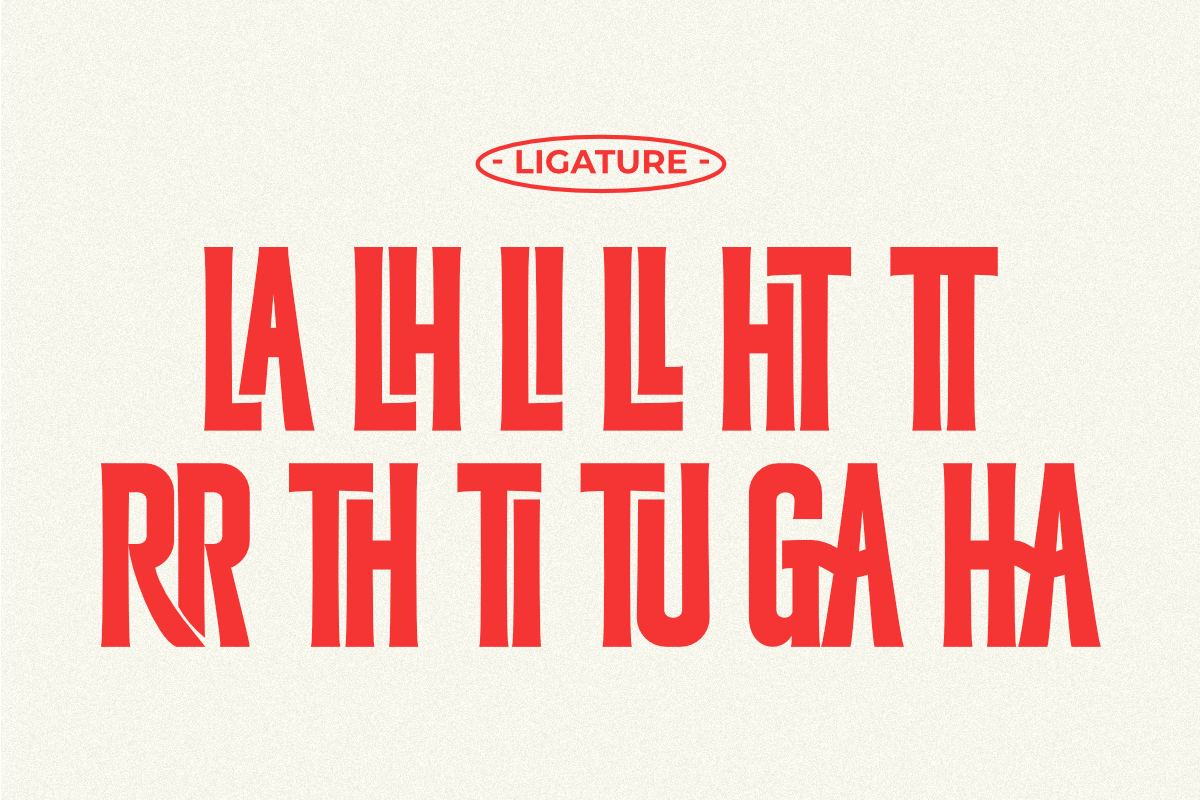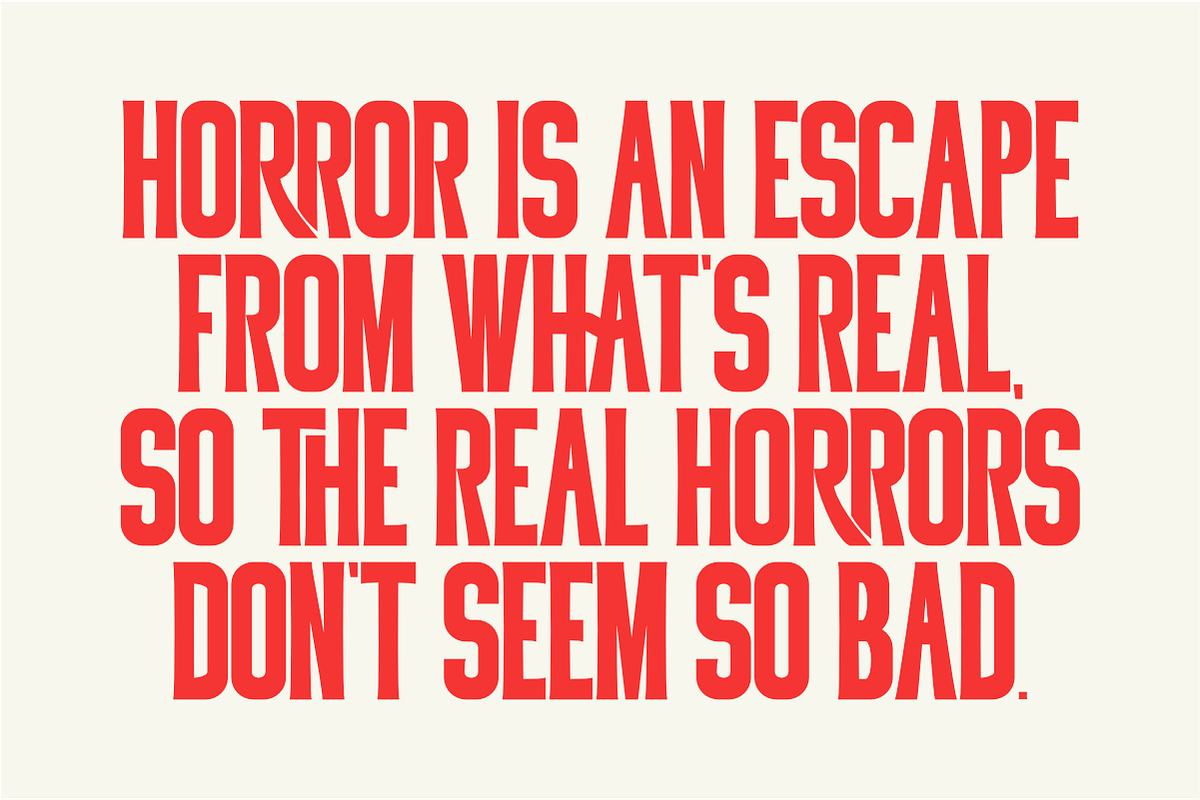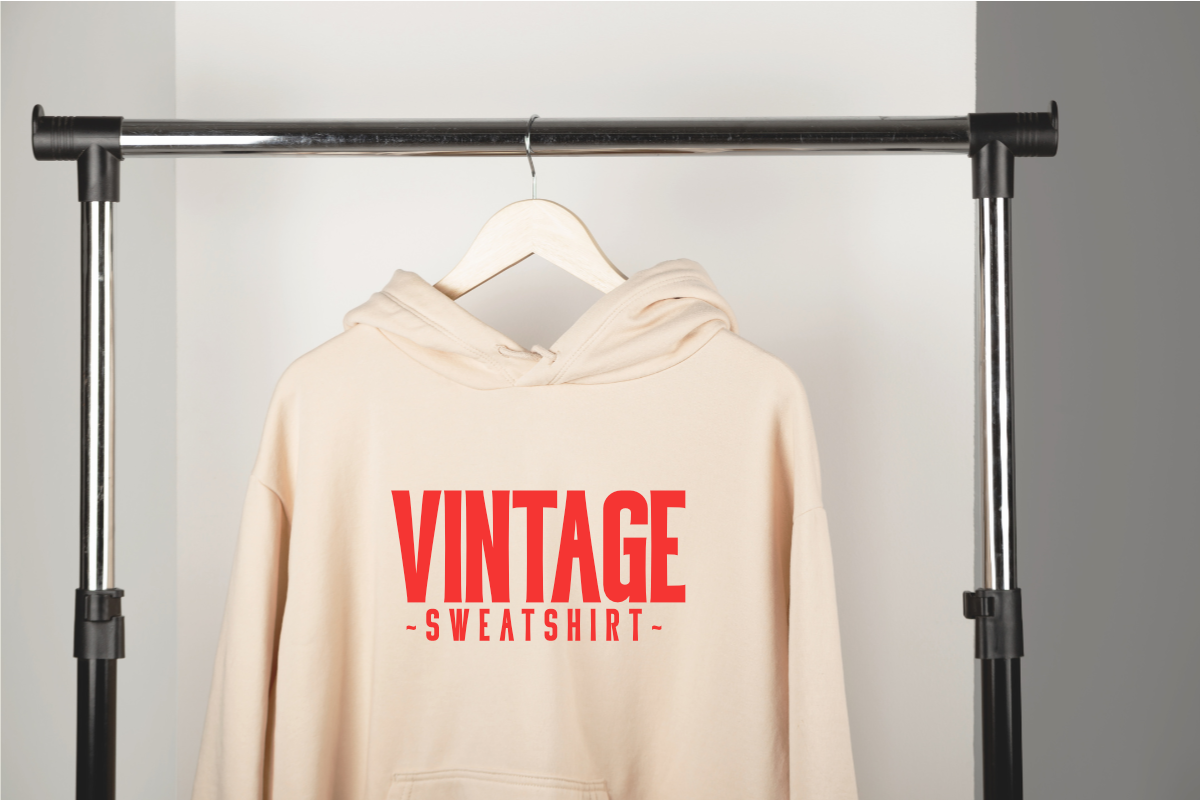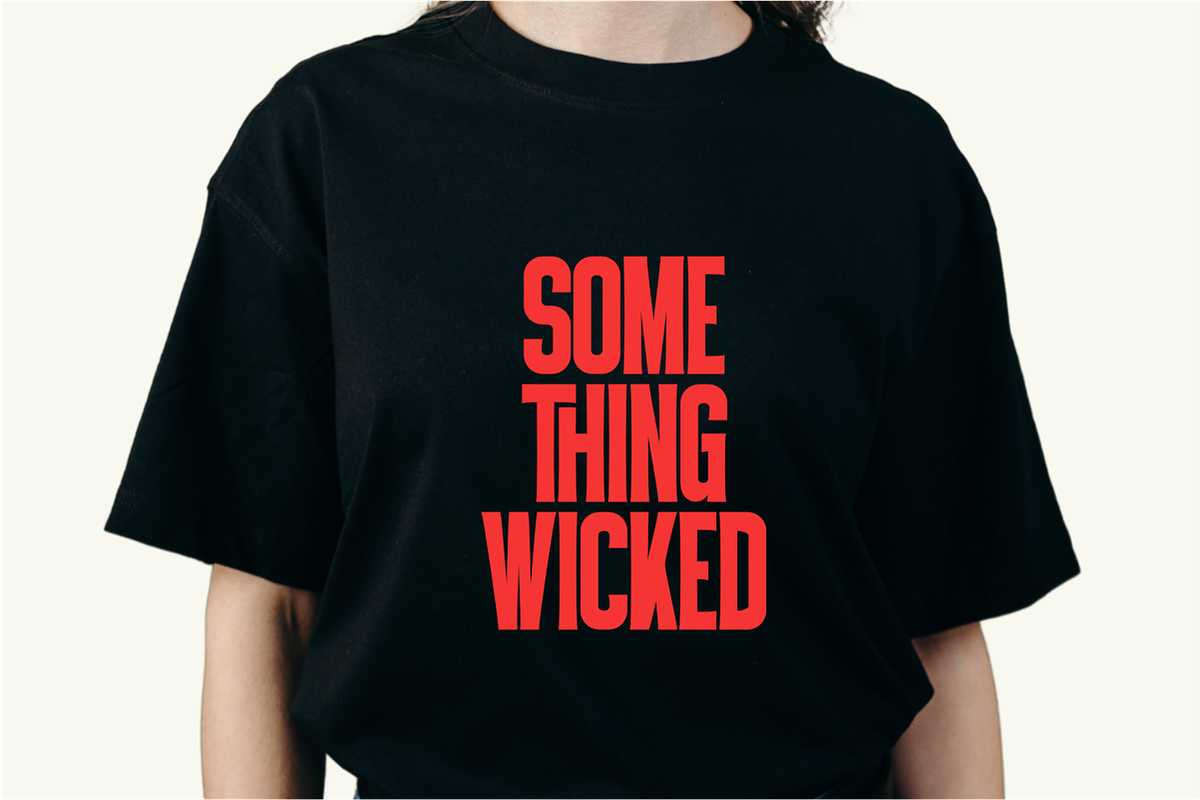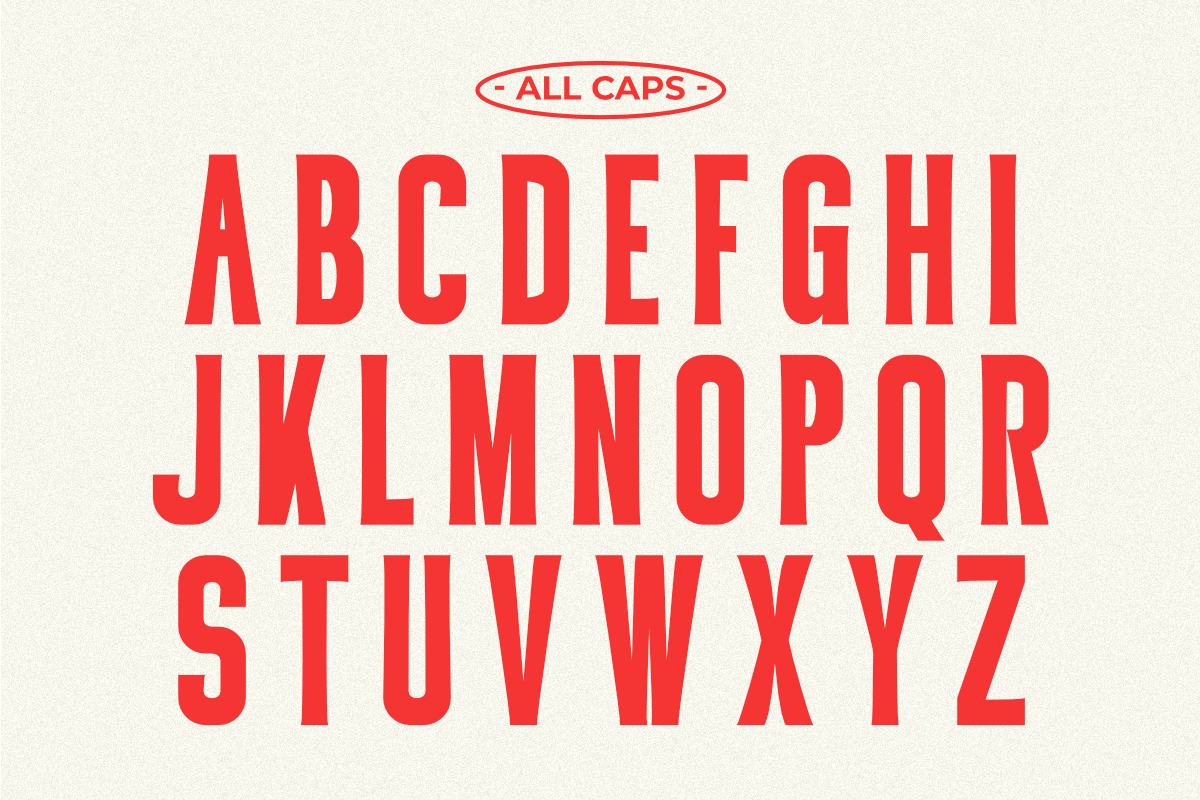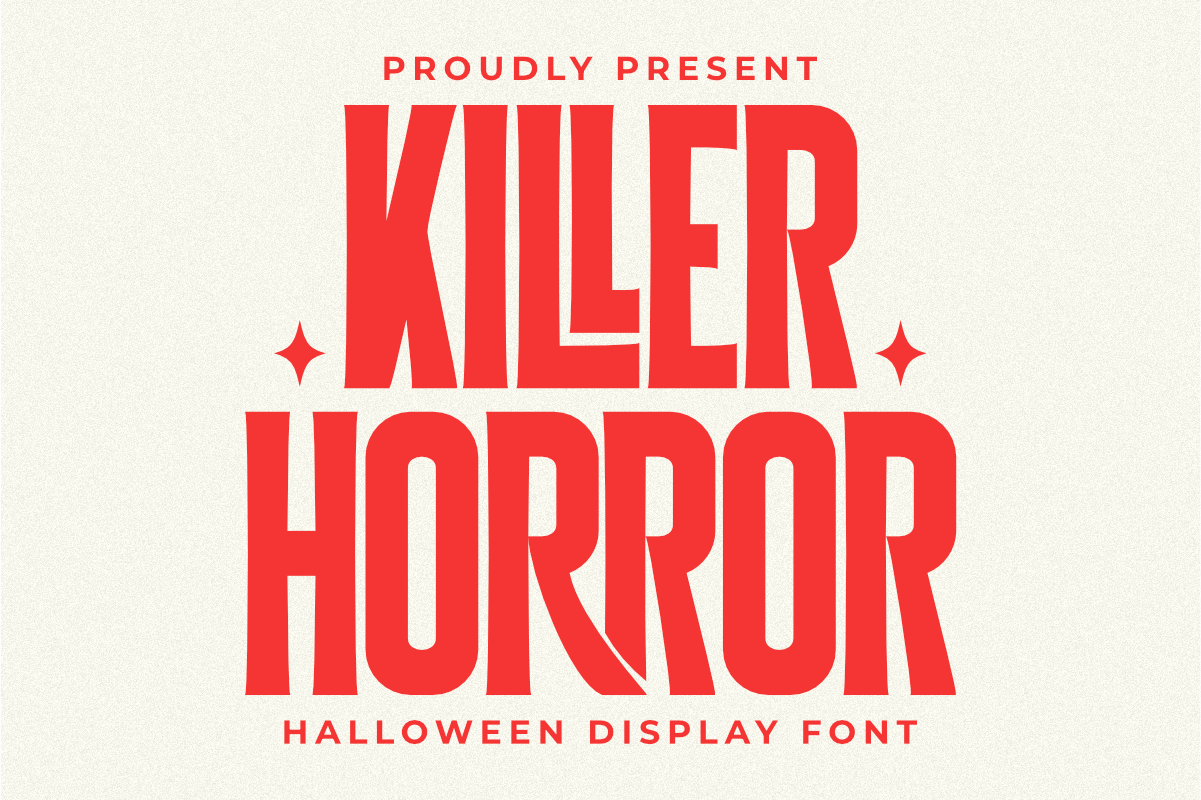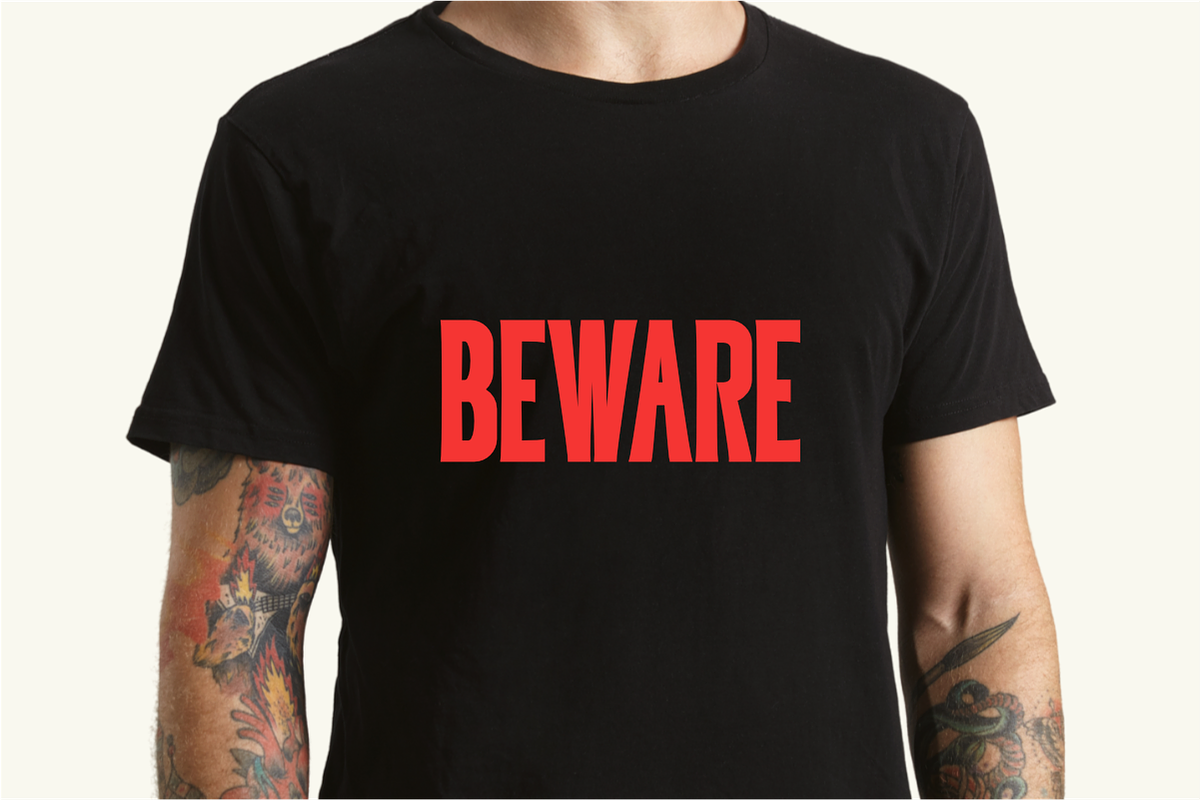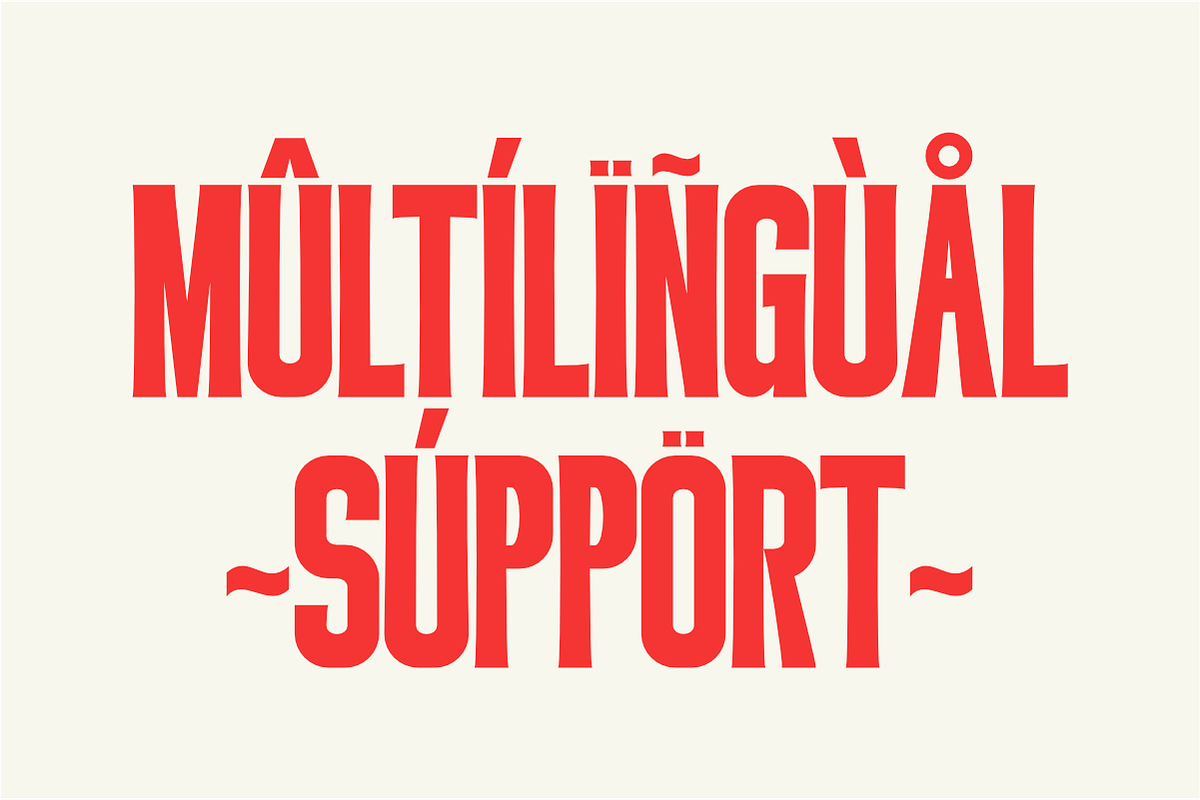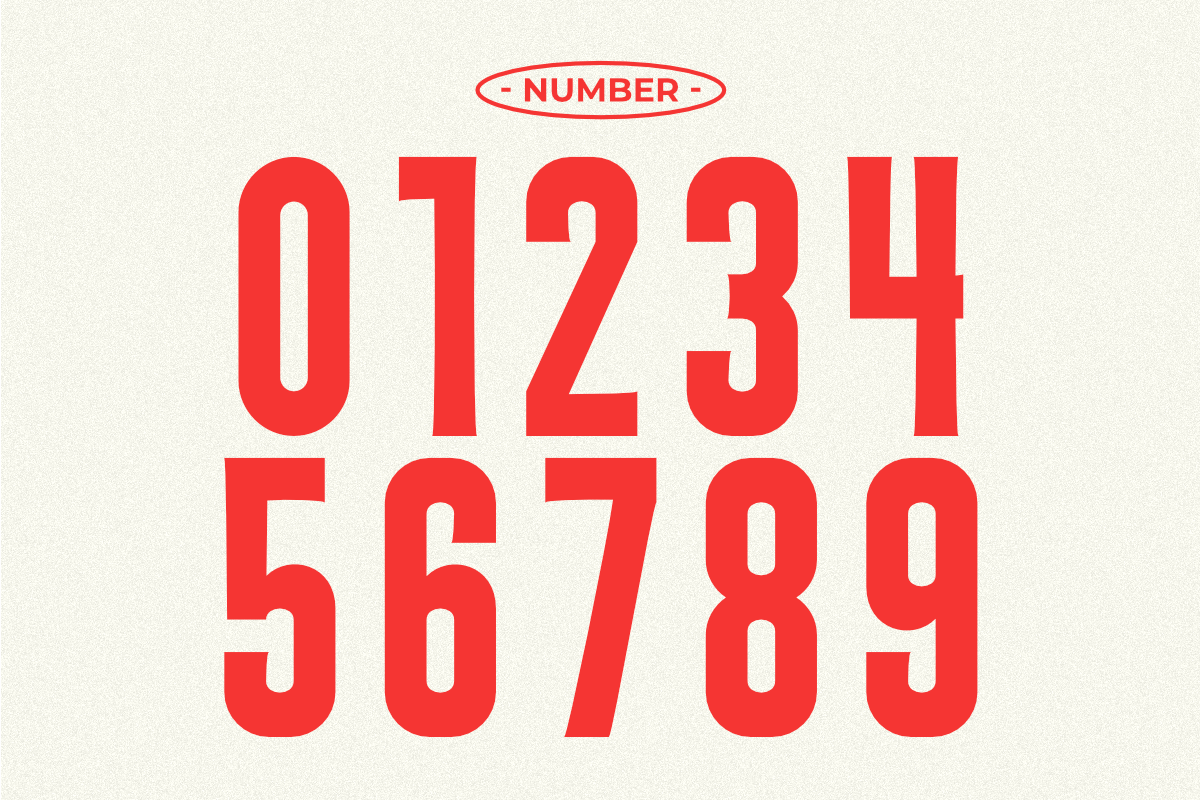
Killer Horror - Display Font
Killer Horror is a bold condensed display font with a distinct Halloween theme. Its impactful and creepy style is perfect for posters, T-shirt designs, and branding that needs a strong, spooky presence. The font features sharp serifs and a slightly distorted look, giving it a horror movie feel. This versatile typeface is also ideal for headlines, album art, and event promotions, ensuring your design is both memorable and terrifying.